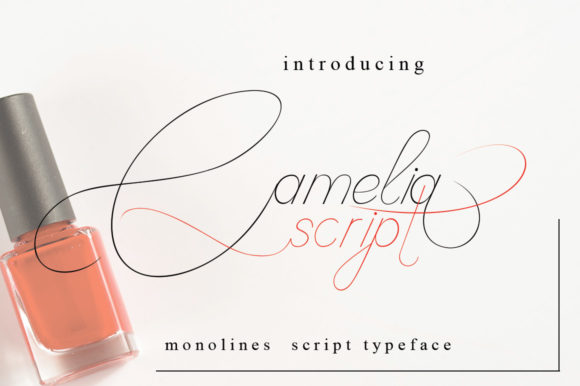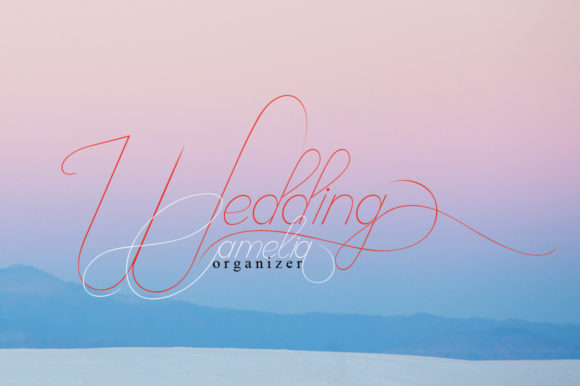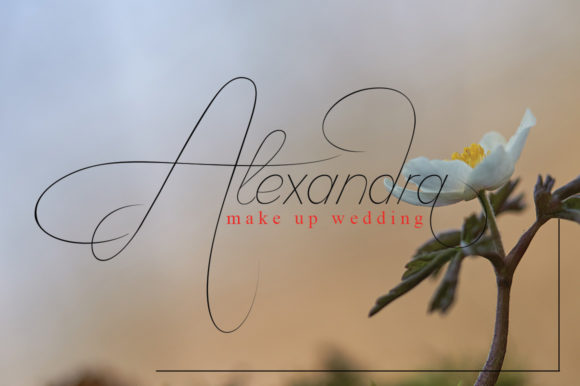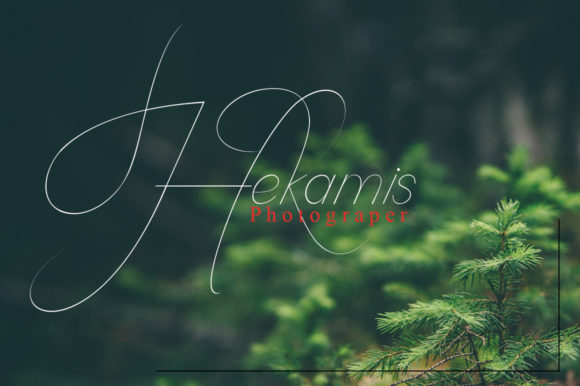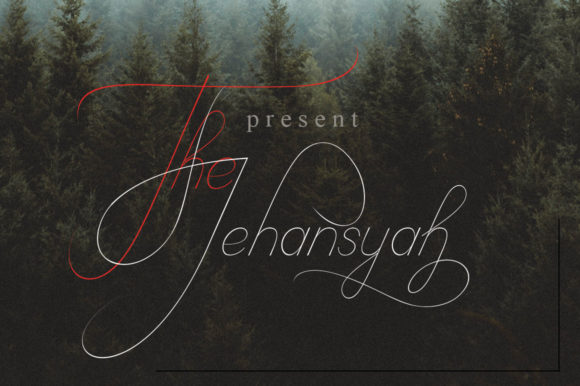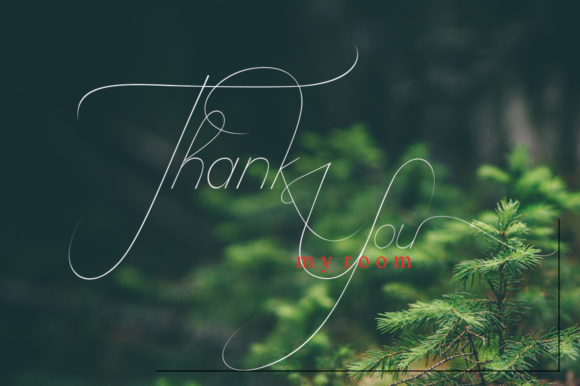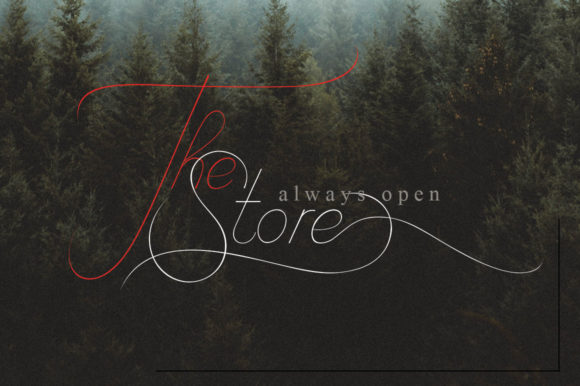
Camelia Script Font
About Camelia Script Font
The Camelia is a monoline script with a cute and sweet look. It’s the perfect font to add an upscale and chic look to your designs!